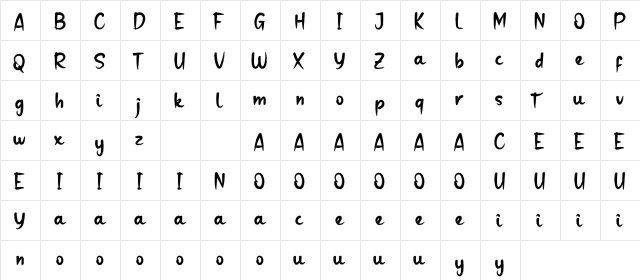
Skotteng Personal Use
Design Context for Skotteng Typeface
Skotteng is a composed and adaptable typeface that performs quietly and consistently across a wide range of design contexts.